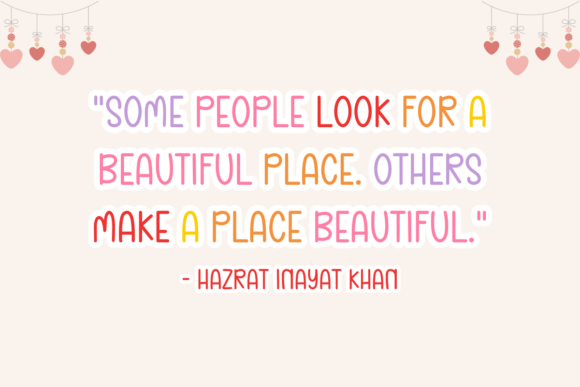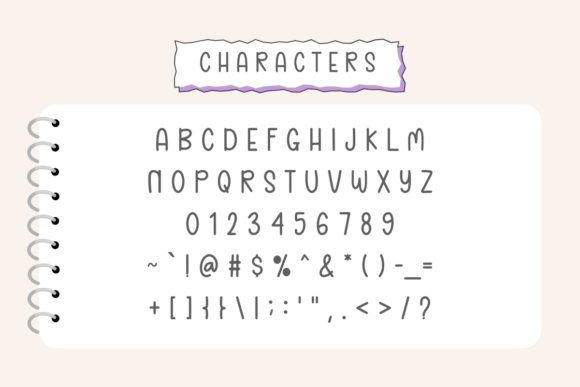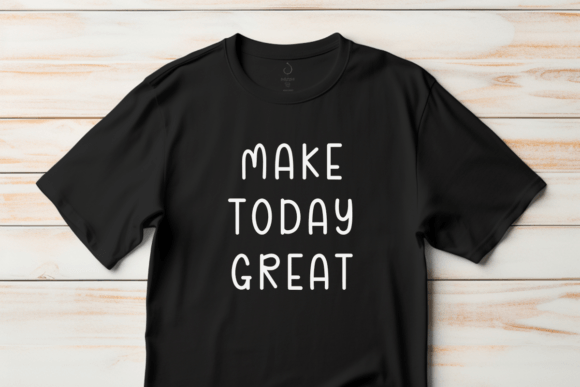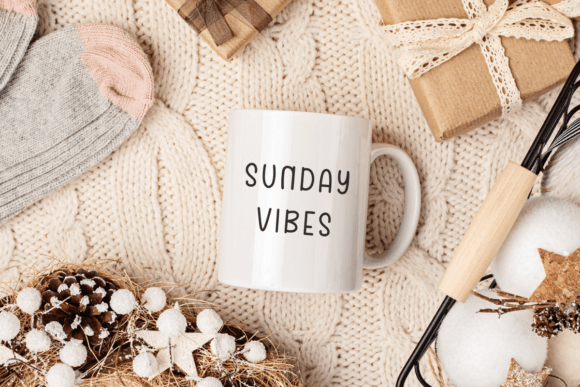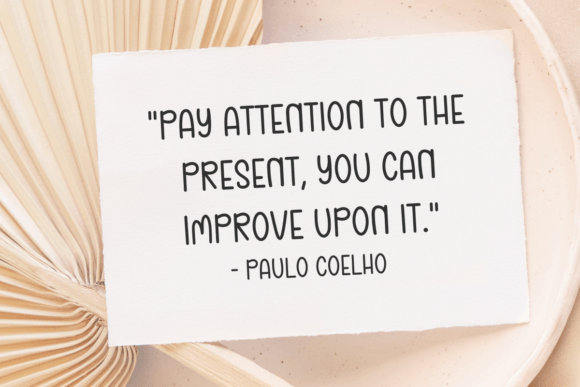
Cupids Carnival Font: The Perfect Handwritten Sans Serif Font for Your Creative Projects
Are you a designer, crafter, or DIY enthusiast looking for a fun and cute font to add a personal touch to your projects? Look no further than Cupids Carnival Font! This handwritten sans serif font is perfect for a wide range of creative endeavors, from memos and journals to greeting cards and planners.
What is Cupids Carnival Font?
Cupids Carnival Font is a unique and playful font that is sure to add a touch of whimsy to your projects. With its handwritten sans serif design, this font is both modern and approachable, making it perfect for a variety of applications. Whether you’re creating a memo, journal, or planner, Cupids Carnival Font is sure to make your project stand out.
What Can I Use Cupids Carnival Font For?
Cupids Carnival Font is a versatile font that can be used for a wide range of projects, including:
- Memos and notes
- Journals and planners
- Scrapbooks and paper crafts
- Diary and notebook paper
- Printable art and quotes
- Low-content books and KDP interiors
- Daily, weekly, and monthly planners
- To-do lists and sheets
- Workbooks and journal templates
Why Choose Cupids Carnival Font?
So why choose Cupids Carnival Font for your projects? Here are just a few reasons:
- Unique and playful design: Cupids Carnival Font has a fun and whimsical design that is sure to add a touch of personality to your projects.
- Easy to read: Despite its playful design, Cupids Carnival Font is easy to read and understand, making it perfect for a wide range of applications.
- Versatile: Cupids Carnival Font can be used for a wide range of projects, from memos and journals to greeting cards and planners.
- Perfect for KDP interiors: If you’re creating low-content books or KDP interiors, Cupids Carnival Font is a great choice. Its playful design and easy-to-read format make it perfect for a wide range of KDP projects.
Tips for Using Cupids Carnival Font
Here are a few tips for using Cupids Carnival Font in your projects:
- Use it for headings and titles: Cupids Carnival Font is perfect for headings and titles, where its playful design can really shine.
- Pair it with other fonts: Cupids Carnival Font can be paired with other fonts to create a unique and interesting look. Try pairing it with a serif font for a contrasting look.
- Experiment with colors and textures: Cupids Carnival Font looks great in a variety of colors and textures. Experiment with different colors and textures to find the perfect look for your project.
Cupids Carnival Font is a fun and playful handwritten sans serif font that is perfect for a wide range of creative projects. With its unique and whimsical design, easy-to-read format, and versatility, Cupids Carnival Font is a great choice for designers, crafters, and DIY enthusiasts. Whether you’re creating a memo, journal, or planner, Cupids Carnival Font is sure to add a touch of personality and whimsy to your project.